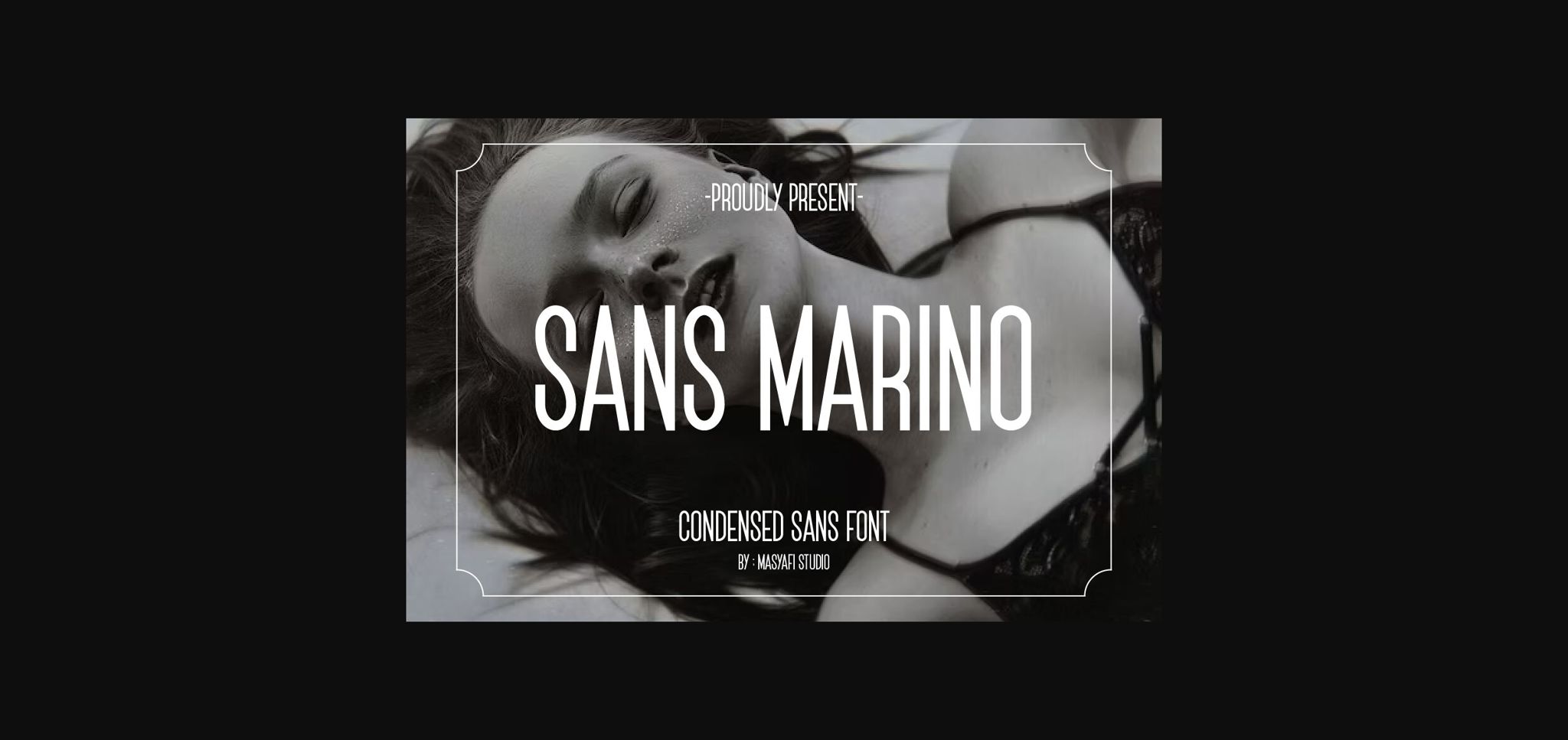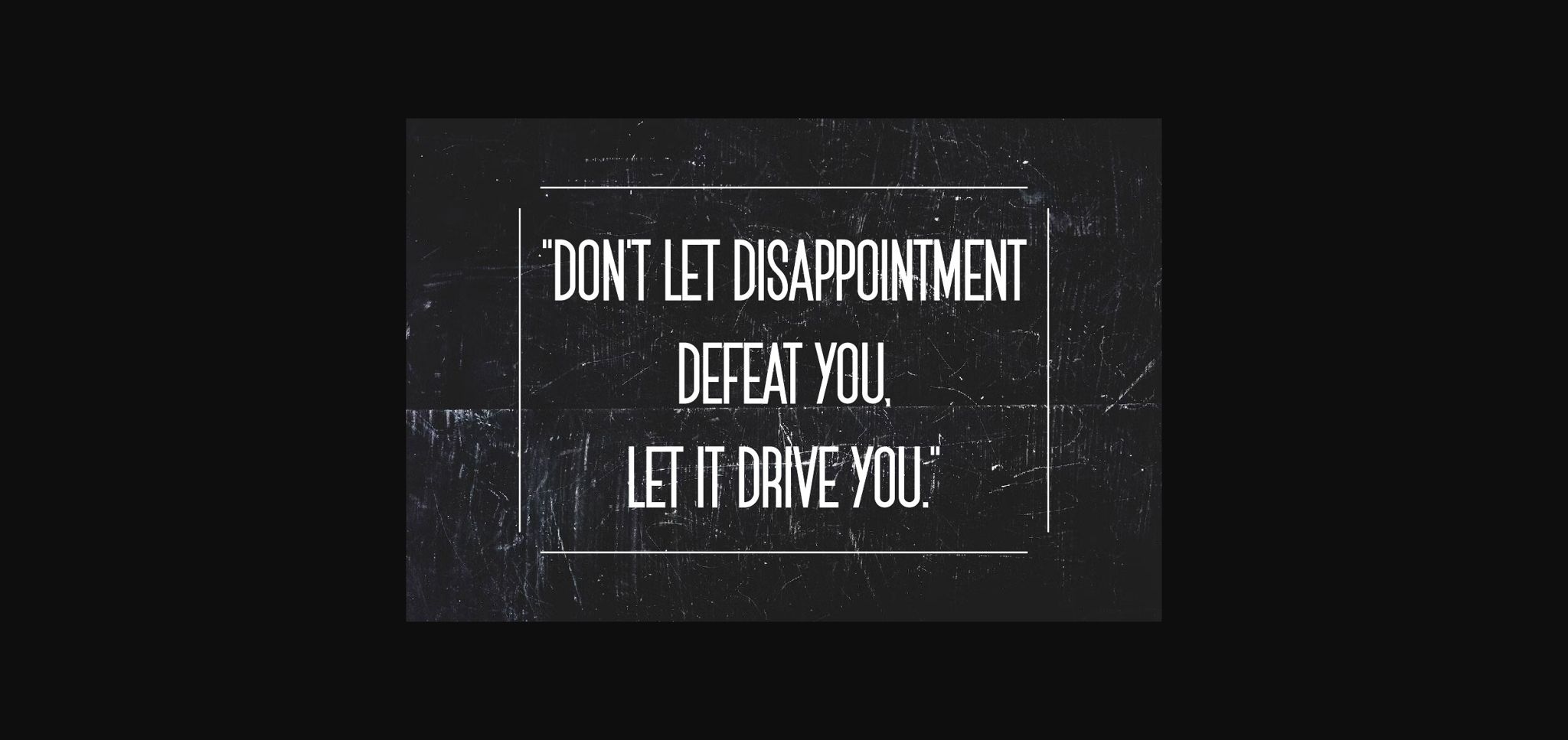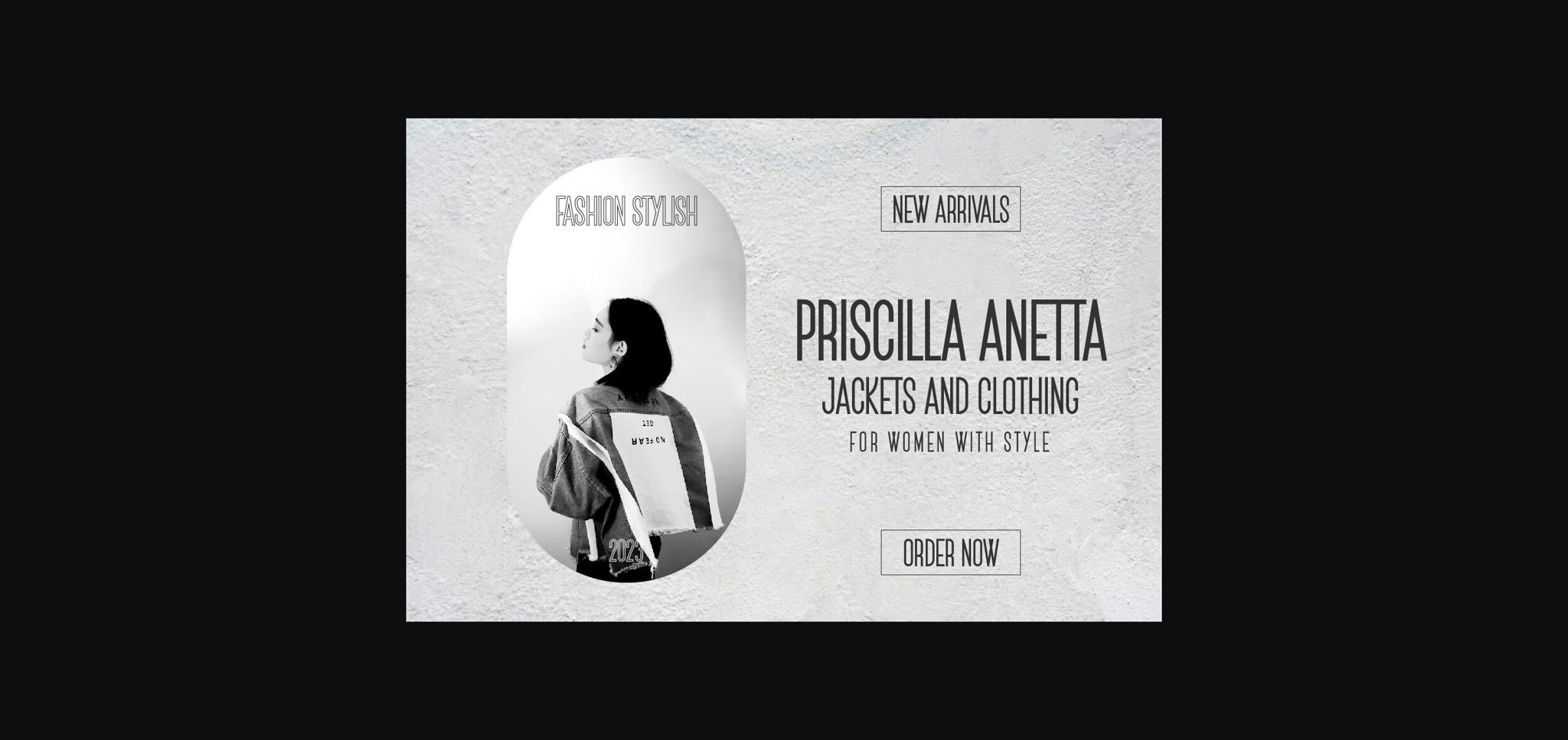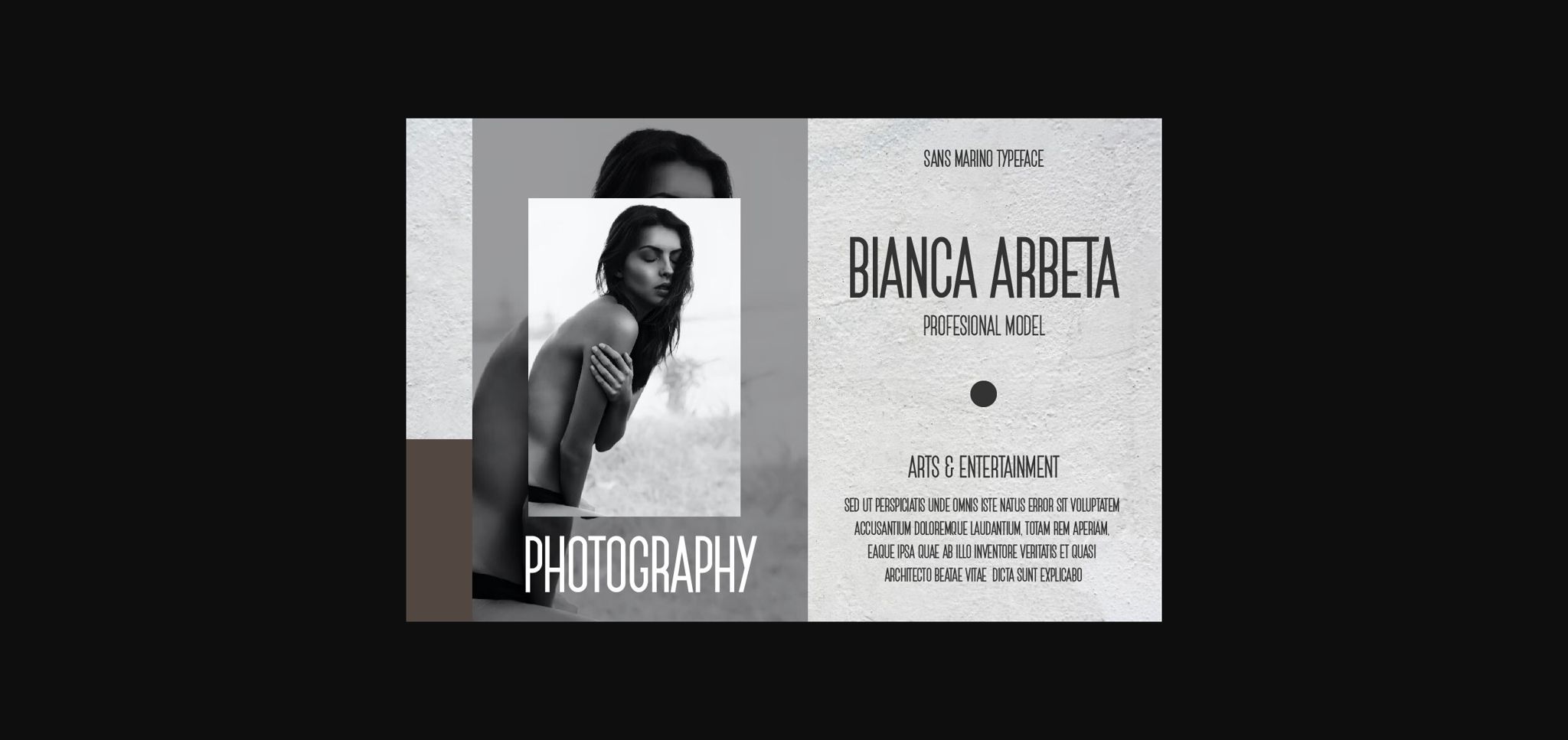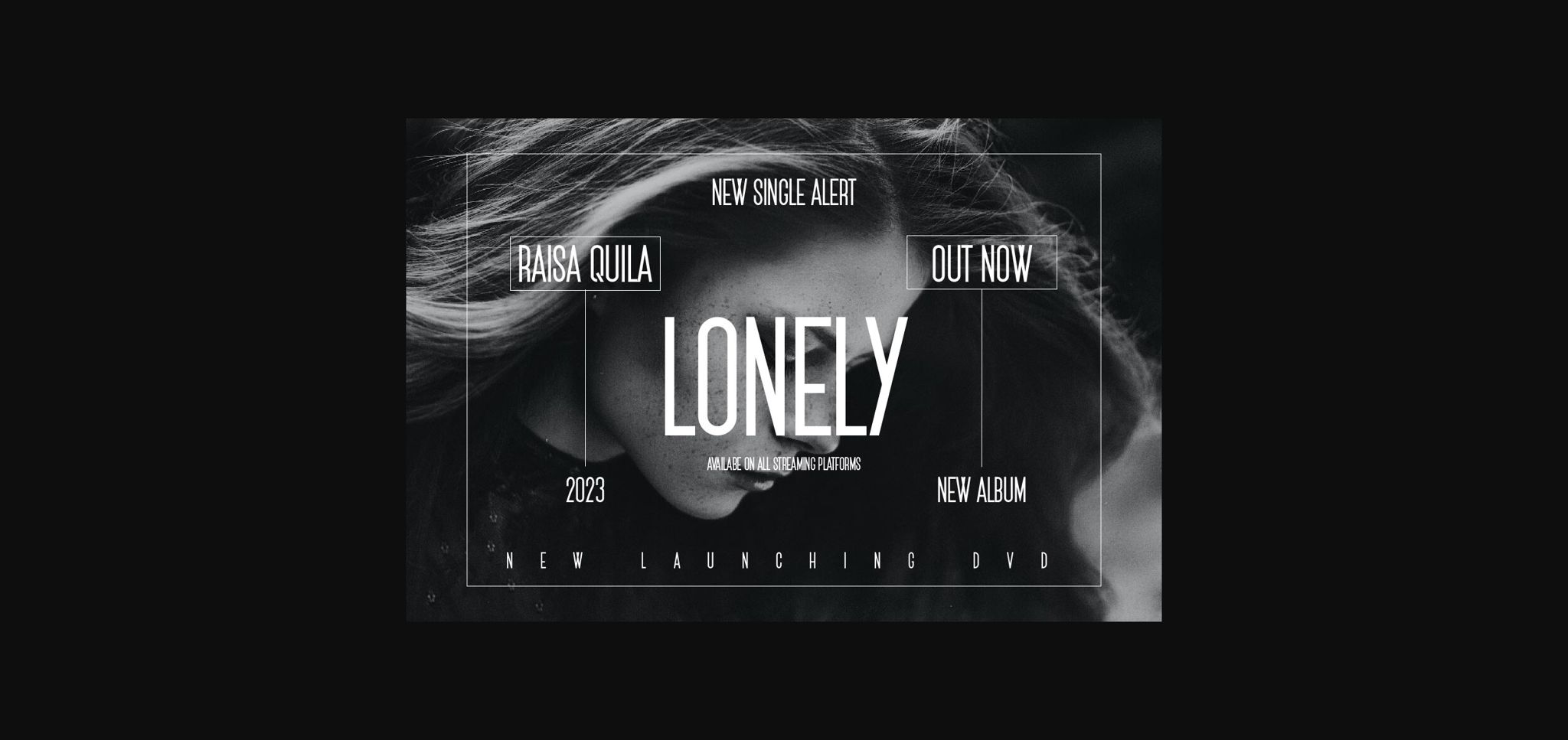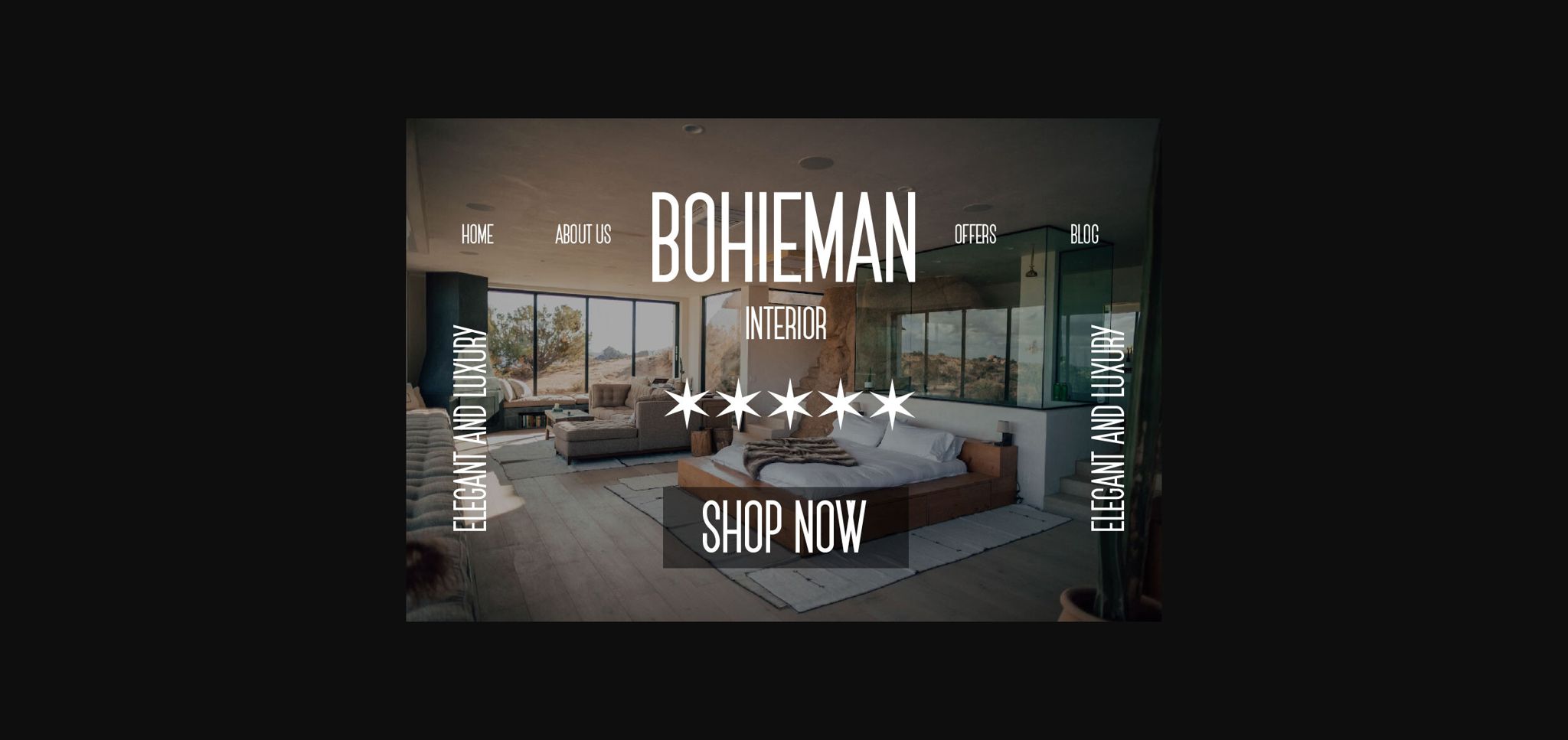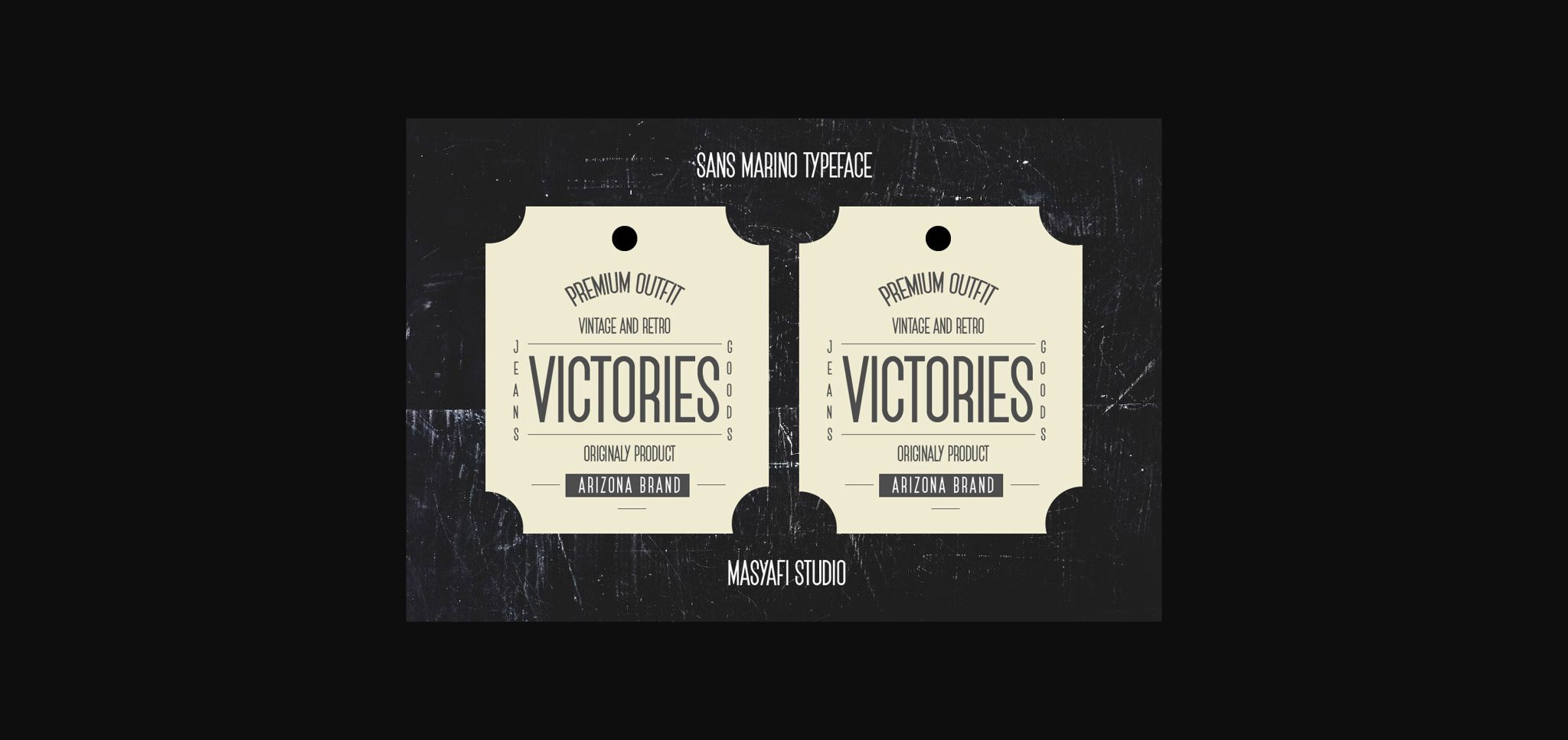
About Sans Marino Font
Sans Marino – Condensed Sans Fonts
A Condensed sans serif font, this font is cool for quotes, photography, posters, fashion branding, album covers, headlines, product labels